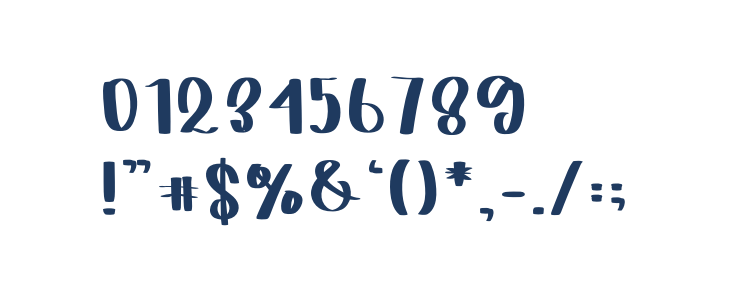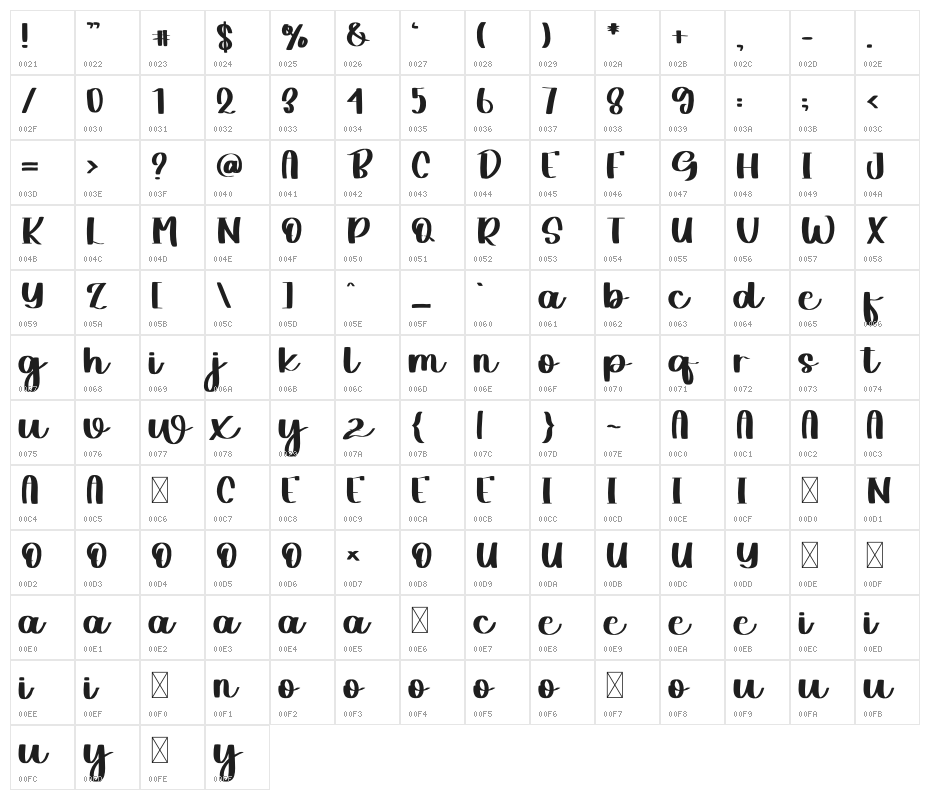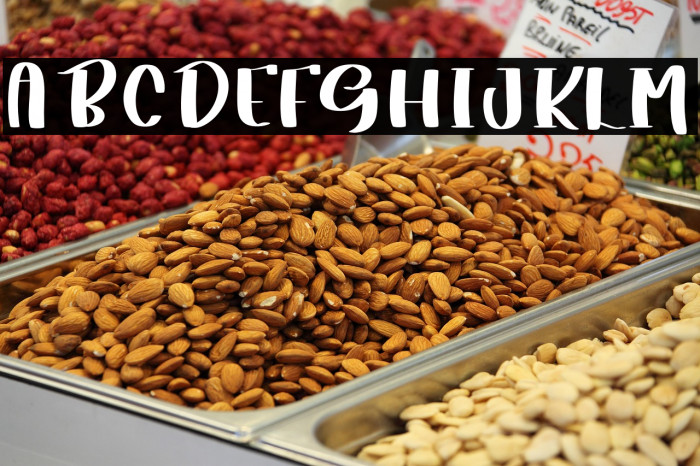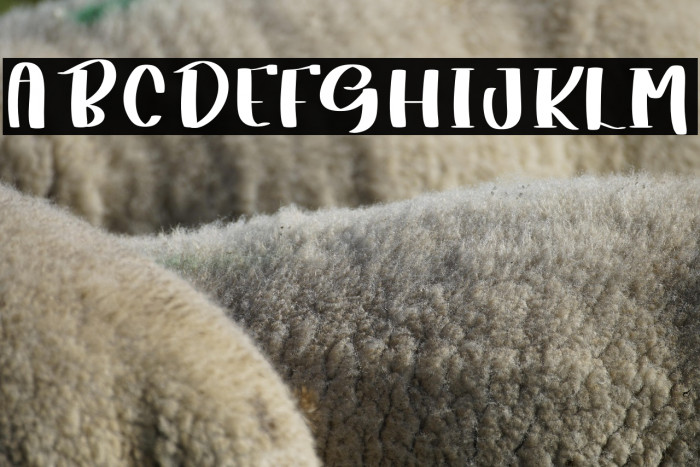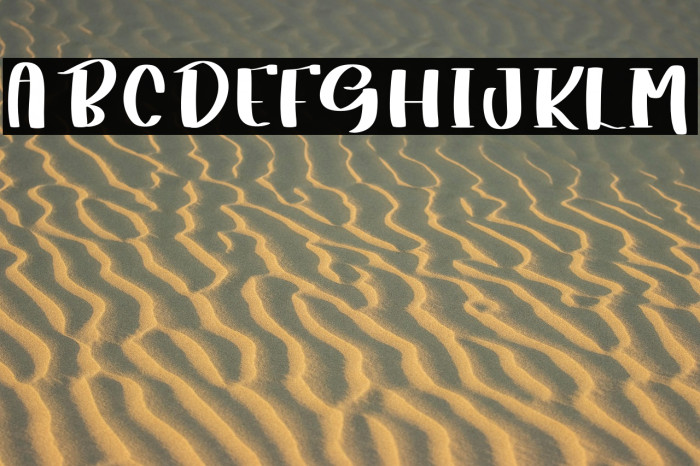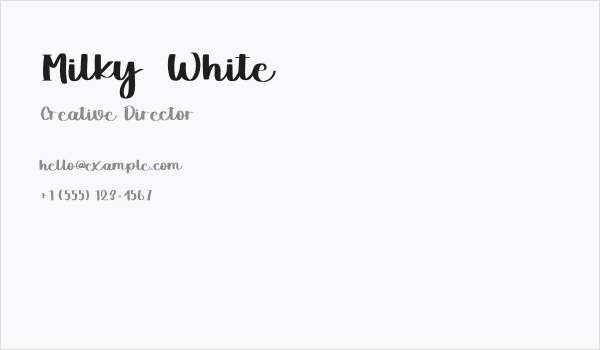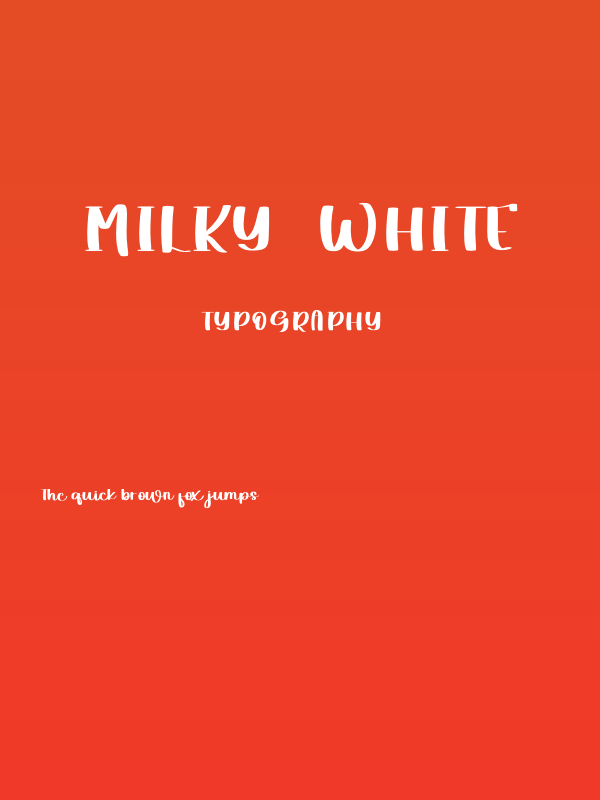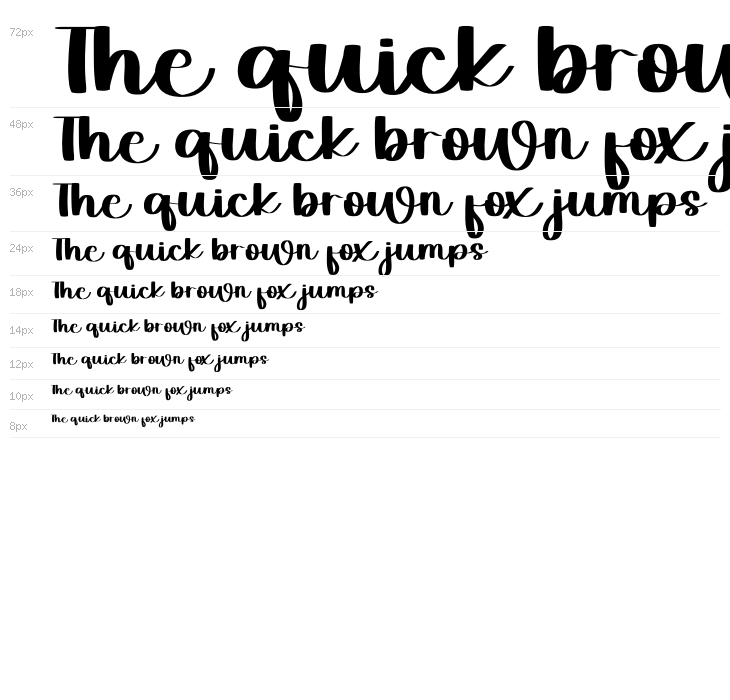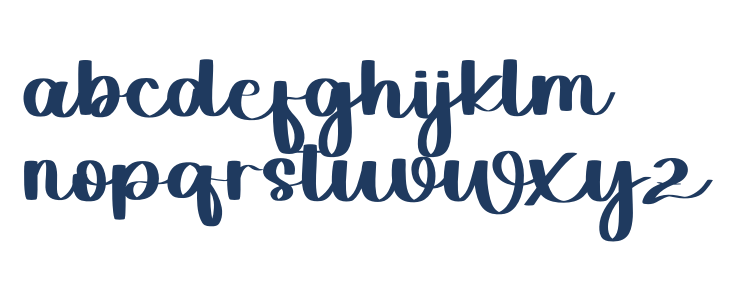
Milky White Font
Milky White Description
This font features a playful and bold script style, characterized by its thick, flowing strokes and a lively, energetic appearance. The uppercase letters are bold and rounded, with a slight slant that adds a dynamic feel. The lowercase letters maintain a consistent flow, with some characters featuring loops and curls that enhance the font's whimsical nature. The numerals are equally bold and maintain the playful aesthetic, making them stand out. Special characters are creatively designed, complementing the overall style. This font's boldness and unique character make it ideal for eye-catching designs.
| Proposed Projects | Ideal for branding, posters, invitations, and any project that requires a fun and dynamic touch. |